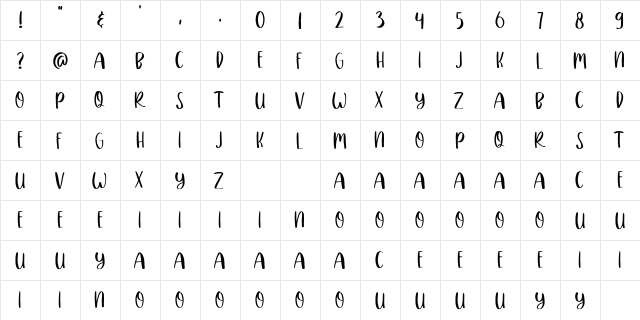
PINKY TALK Regular
| Foundry | Alghul |
| Designer | Alghul |
Design Context for PINKY TALK Typeface
PINKY TALK is a composed and adaptable typeface that performs quietly and consistently across a wide range of design contexts.